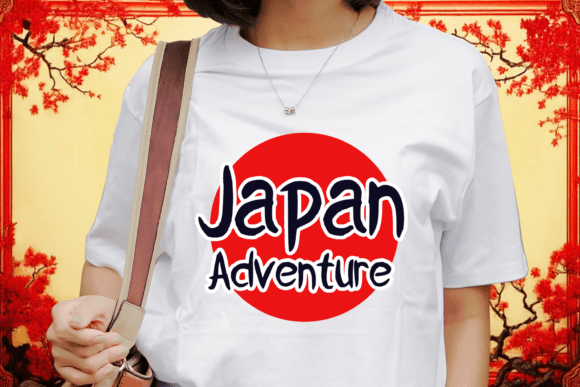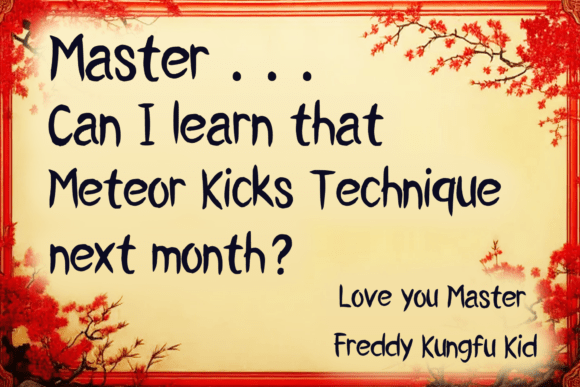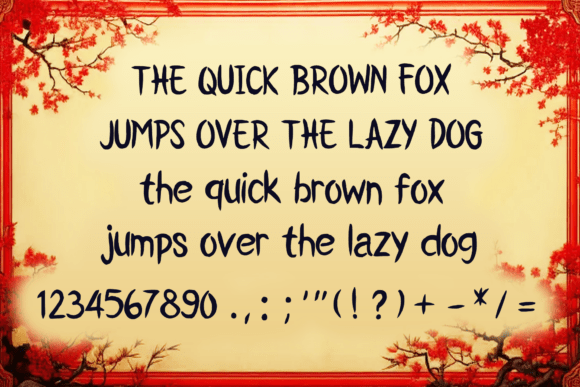
Discover the Timeless Charm of the Asian Japanese Font
Imagine you’re sipping matcha in a serene Tokyo garden, surrounded by the soft whispers of cherry blossoms. As you sketch the intricate strokes of a traditional Japanese calligraphy, a spark of creativity ignites within you. This is the moment when art and culture blend in perfect harmony – and the Asian Japanese Font is born.
Designed to evoke the organic feel of traditional Japanese and East Asian aesthetics, this stunning handwritten brush display font brings a warm, natural touch to any creative project. Whether you’re a seasoned designer or a newcomer to the world of typography, the Asian Japanese Font is a valuable addition to your toolkit, offering endless possibilities for modern minimal designs and authentic cultural themes.
Key Features of Asian Japanese Font
- Font Family: The Asian Japanese Font family includes a range of fonts, including Minamoto, Yumi, and Kenji, each designed to cater to specific needs.
- Character Set: Supports a wide range of characters, including Kanji, Hiragana, Katakana, and Latin alphabets, making it suitable for diverse applications.
- Unique Characteristics: Features a unique blend of traditional and modern design elements, resulting in a distinctive and recognizable font style that sets it apart from other Asian fonts.
Designer Review: Asian Japanese Font
Overall, the Asian Japanese Font has a lot of potential, but it’s not without its flaws. Here’s what I think.
- The font has a unique and authentic Asian aesthetic, which is perfect for any project that requires a touch of Japanese or Chinese culture.
- The font’s character set is quite comprehensive, covering a wide range of characters and symbols used in Japanese and Chinese languages.
- The font is available in various weights and styles, making it versatile for different design applications.
- The font’s legibility can be a bit of an issue, especially for longer texts or at smaller font sizes. Some characters can be difficult to read due to their complex strokes.
- The font’s kerning can be inconsistent, leading to awkward spacing between characters.
- The font’s compatibility with certain software or platforms may be limited, which can be a concern for designers who need to use it across different tools.
The Asian Japanese Font is a solid choice for designers who need a font that’s authentic and culturally relevant. While it has some limitations, it’s still a great option for many design projects. With a bit of tweaking and refinement, this font could become a top choice for designers looking for an Asian-inspired font.
Asian Japanese font is commonly used in:
- Asian-inspired designs and branding.
- Food and beverage packaging and marketing materials.
- Travel and cultural tourism marketing materials.